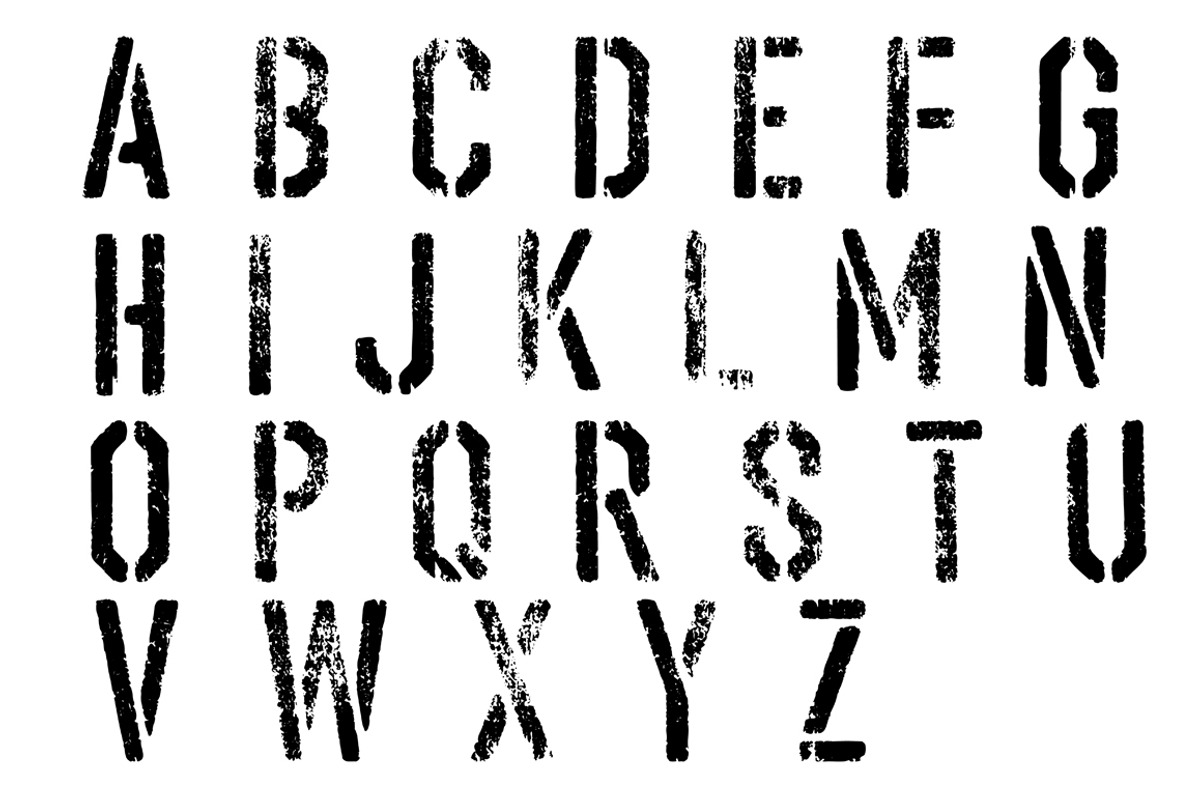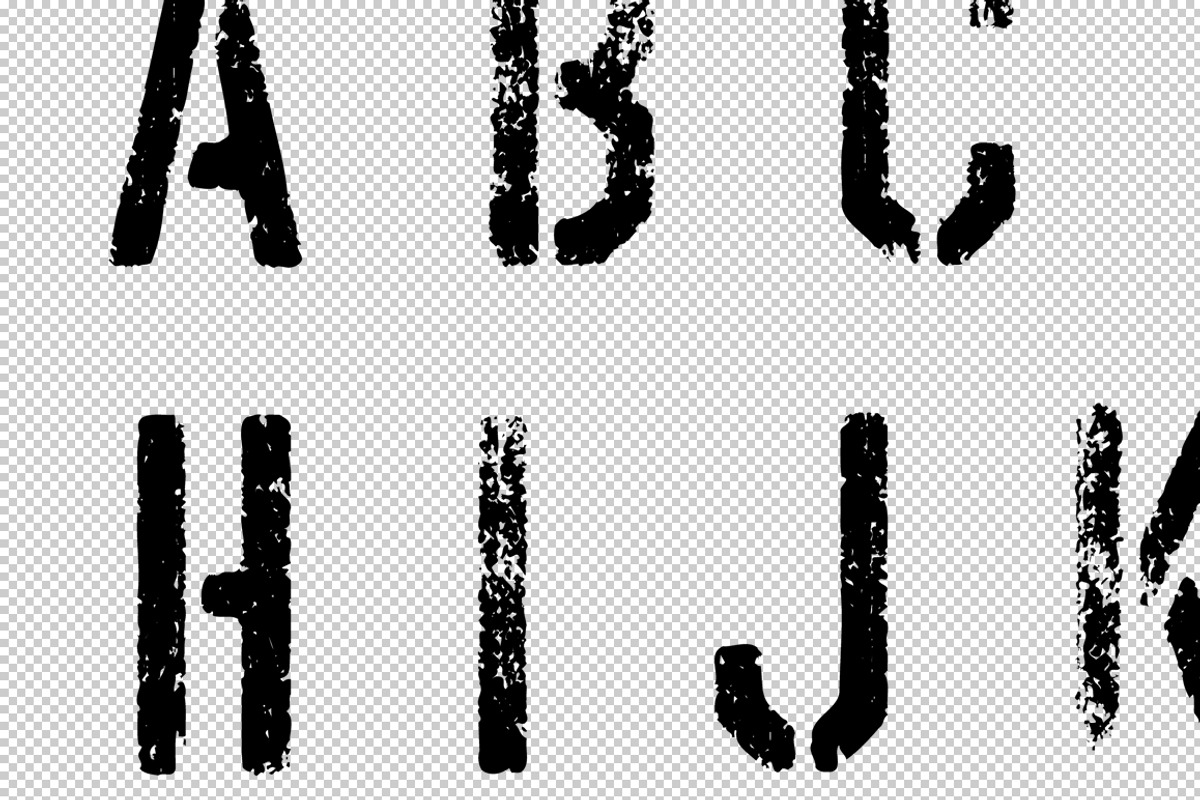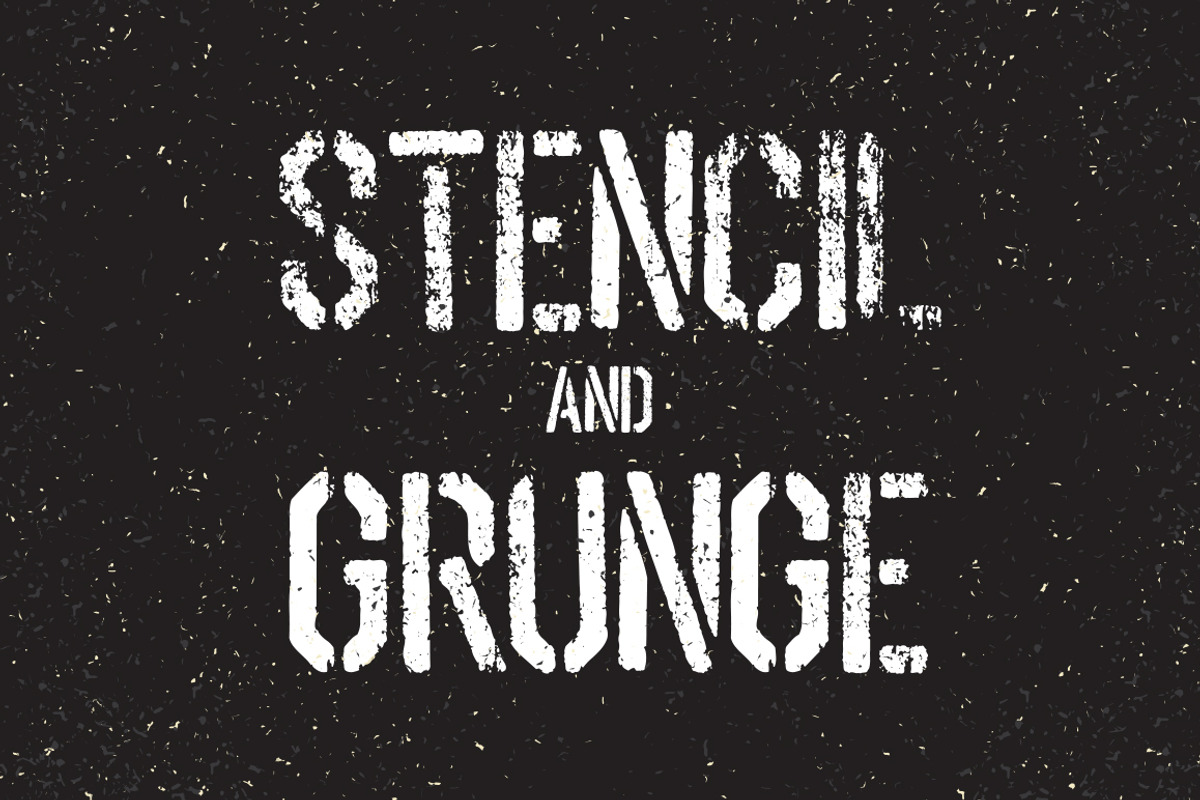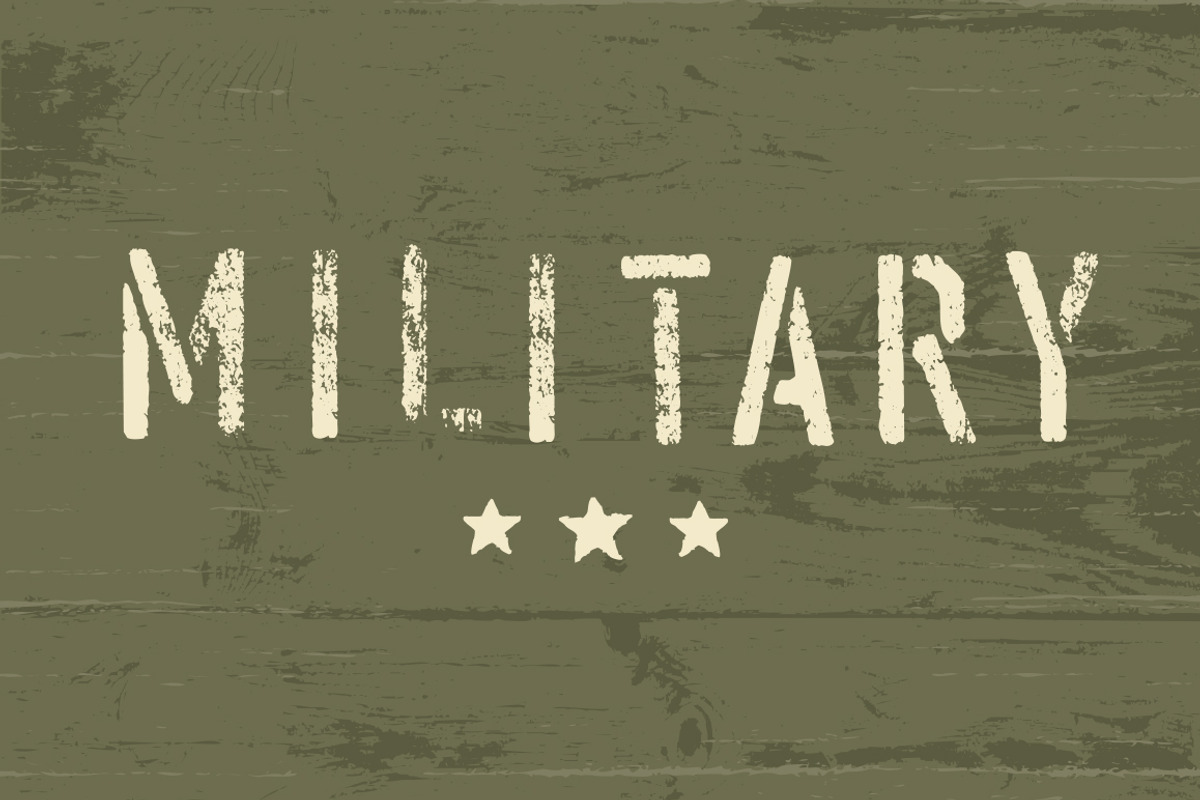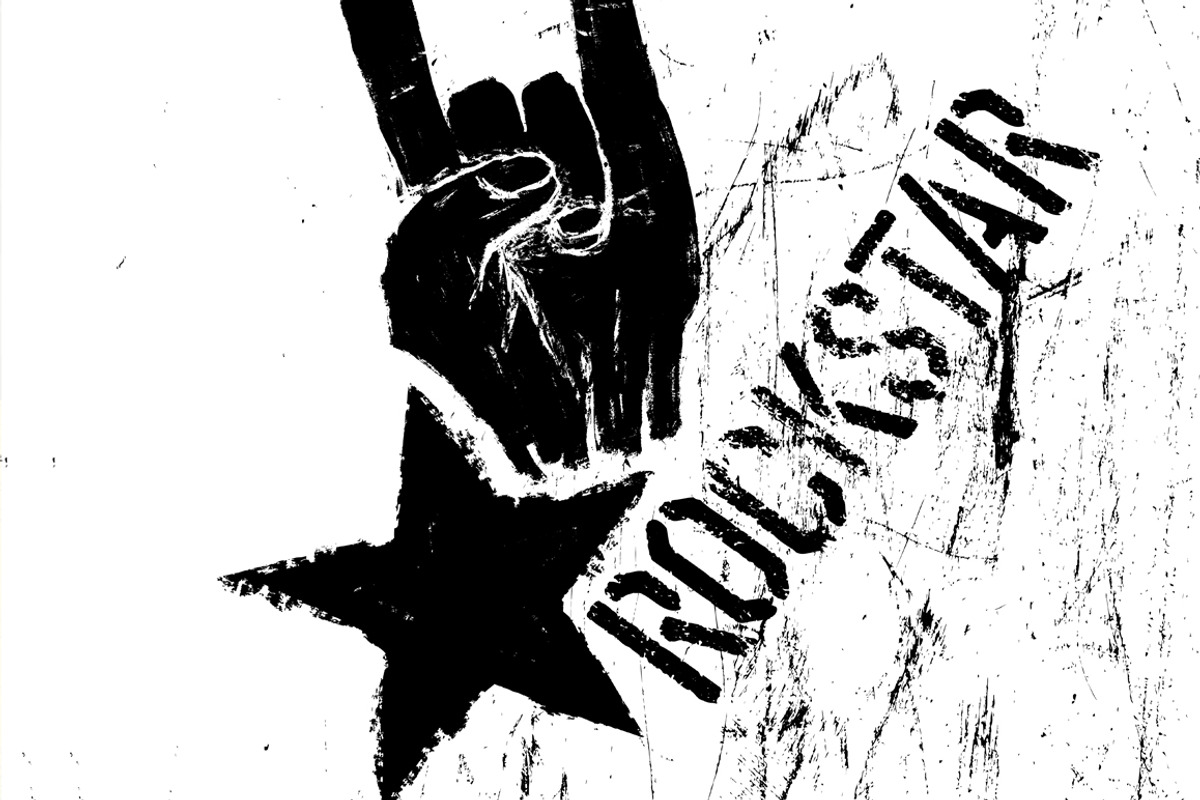
Stencil font and grunge textures set
Stencil grunge font. Capital letters (uppercase) only. Grunge vector textures for use together. Brick wall, wooden planks, grunge and camouflage textures in pack.
This is the apex of the stencil style fonts I have in my collection. The rough surface version looks realistic even when "sprayed" on a solid color background. We I am less pleased with is the letter spacing; first, because no stencil would ever have such small holdout areas between letters, and second because two styles aren't enough to randomize the grungy texture. Obviously, there are ways around these issues with Illustrator and Photoshop, but I still feel that my comments are appropriate for anyone who has little time or patience.